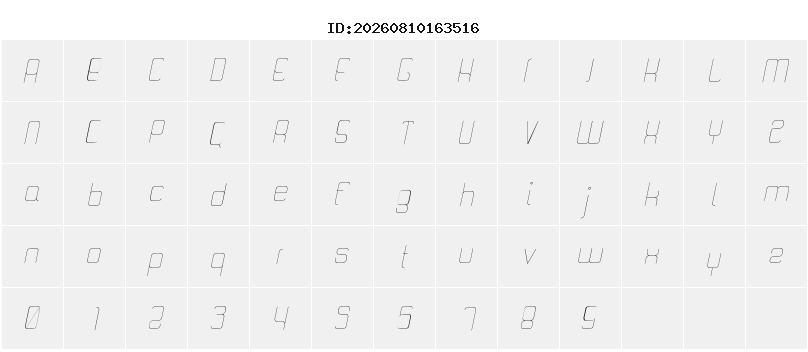
• Font Name: Quattro
• Full Font Name: Quattro Thin Italic
• Version: Version 1.00 August 22, 2012, initial release
Quattro.ttf is a modern, elegant sans-serif font designed for ultimate readability and visual harmony. Perfect for branding, headlines, web design, and print materials.